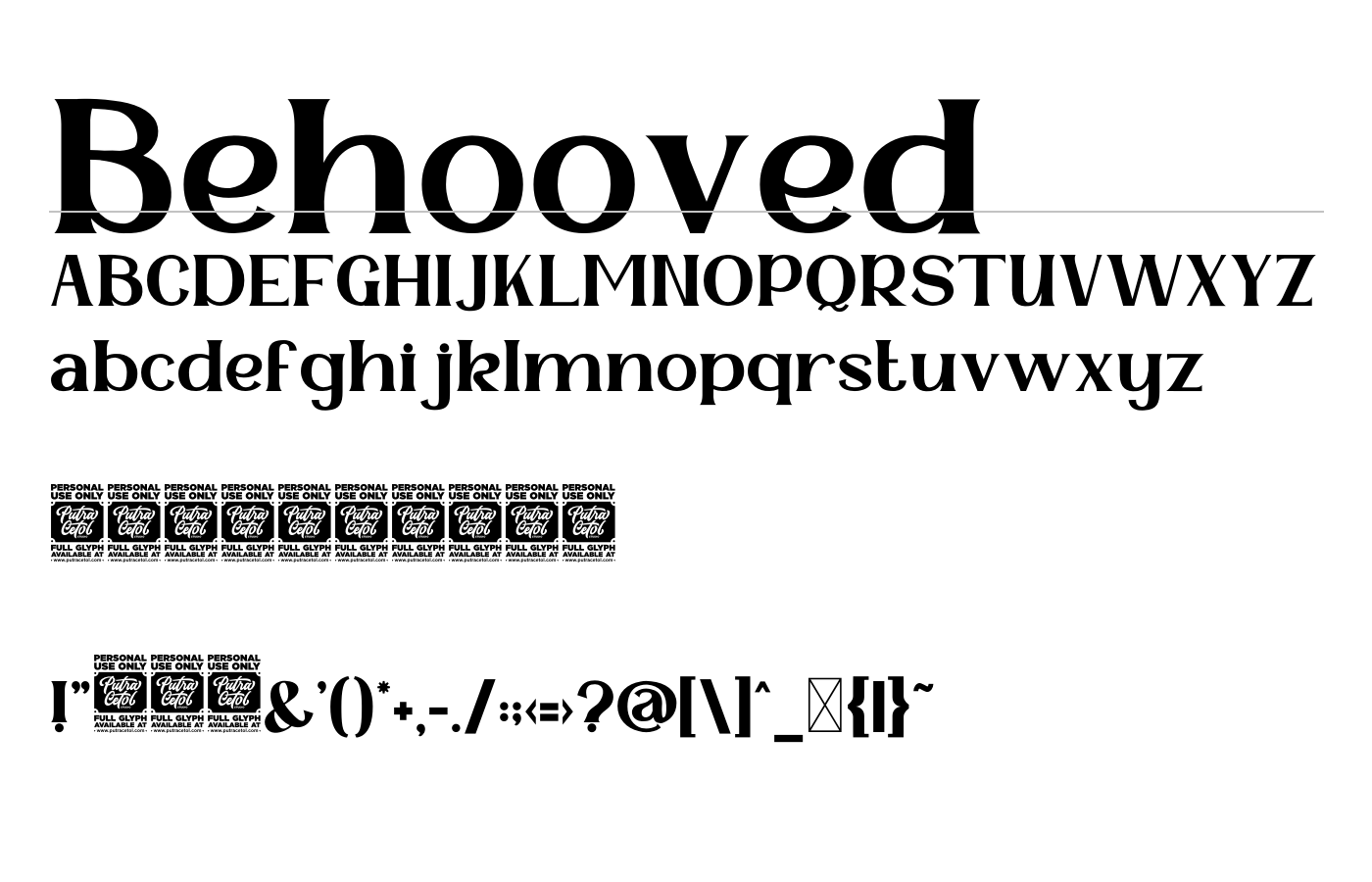
Behooved is a refined serif font with a strong, elegant presence characterized by its moderate contrast between thick and thin strokes and sharp, bracketed serifs. The font features a classic, somewhat vintage feel with unique details like its slightly condensed letterforms, single-story ‘a’ and ‘g,’ and distinctive curves that bring a sophisticated yet approachable charm. Ideal for editorial design, branding, and headlines, Behooved works well when you want to evoke tradition and style with a modern twist.
Behooved Font
About Behooved Font
| Font family | Behooved Font |